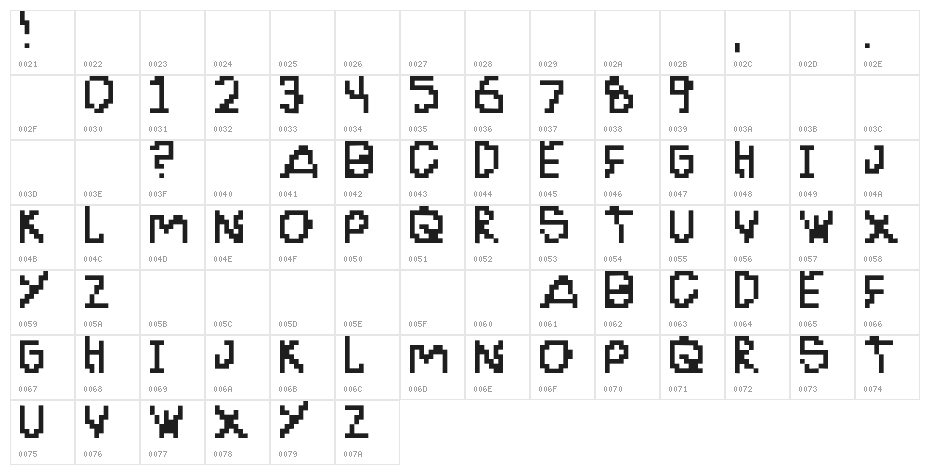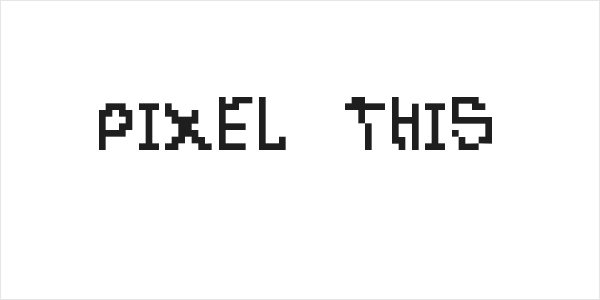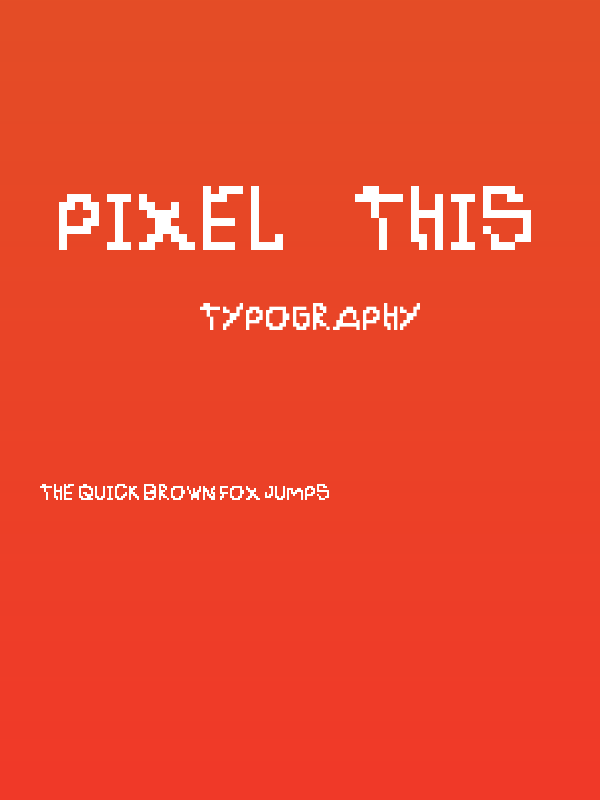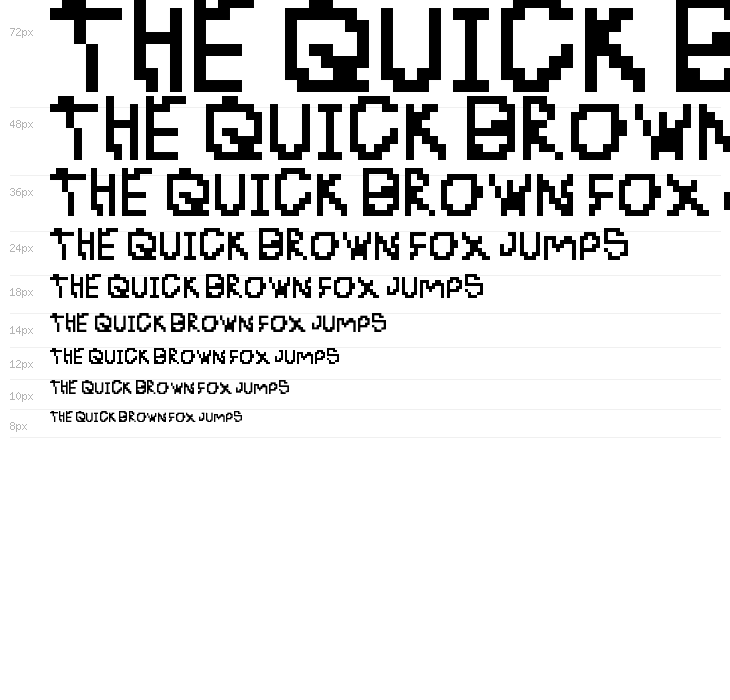
Pixel-This Font
Pixel-This Description
This font features a pixelated, blocky design reminiscent of early digital displays and retro video games. Each character is constructed with sharp, angular edges and a consistent grid-like pattern, giving it a distinctly digital aesthetic. The uppercase and lowercase letters maintain a uniform height, enhancing the font's cohesive appearance. Numbers and special characters follow the same pixelated style, ensuring visual consistency across all elements. This font's nostalgic charm and straightforward design make it ideal for projects seeking a vintage or tech-inspired look.
| Overall Style | Vintage |
| Proposed Projects | Ideal for video game design, retro-themed posters, digital art projects, and tech-related branding. |